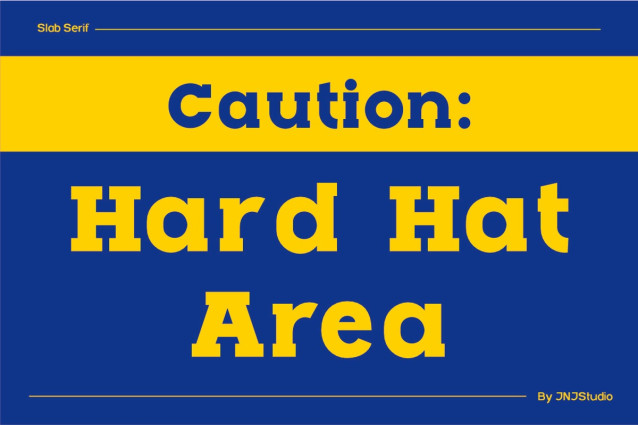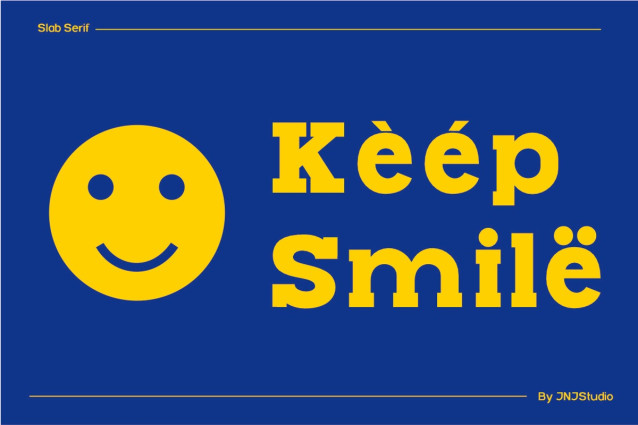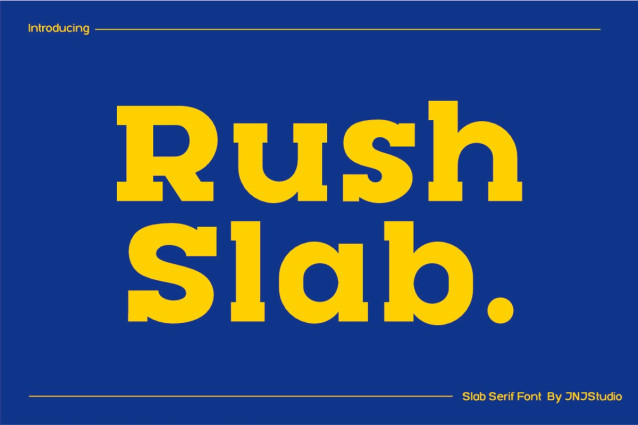
Rush Slab Font
Rush Slab Font is a bold and confident slab serif typeface that strikes a perfect balance between vintage charm and modern utility. Designed with thick, block-like serifs and a solid structure, Rush Slabi brings a sense of strength and reliability to any design.
This font exudes character with its geometric proportions and slightly condensed letterforms, making it ideal for impactful headlines, branding, posters, and editorial use. Each glyph is crafted to maintain legibility while delivering a punch of personality, whether on print or screen.